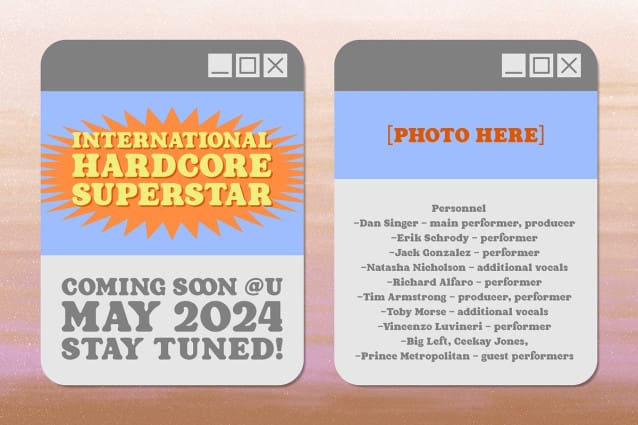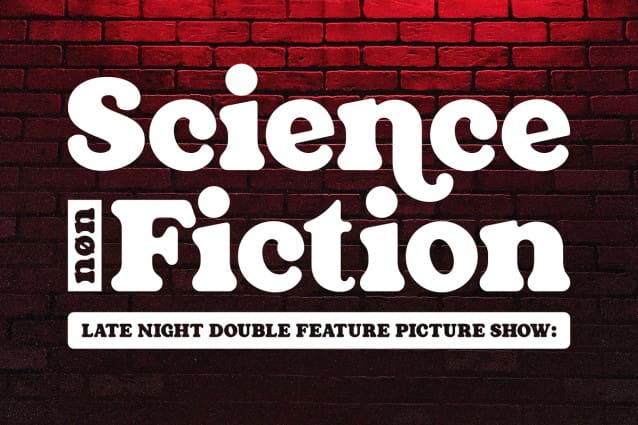
Guckly Font
Guckly Font, our latest font release that are inspired by classic typography. Digitally crafted with high attention to the smooth lines to achieve the rounded edges feel. Suits best for you that are working with: poster, headline. logo/branding, packaging, etc.